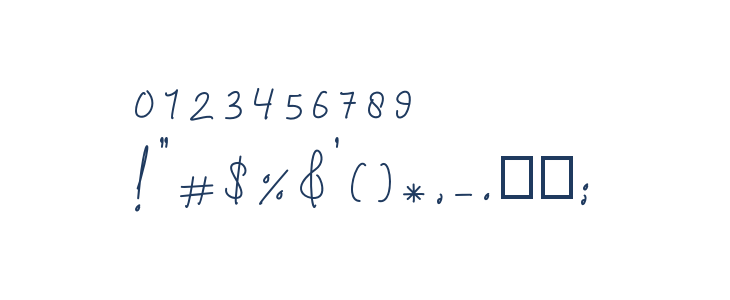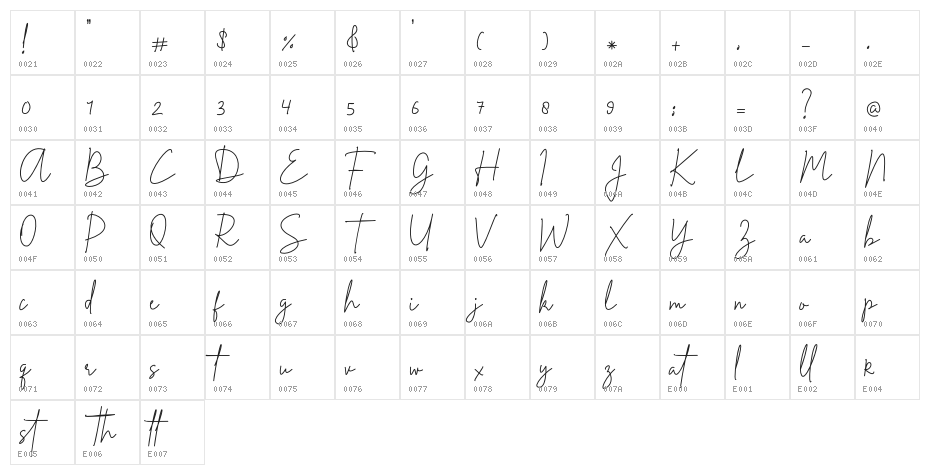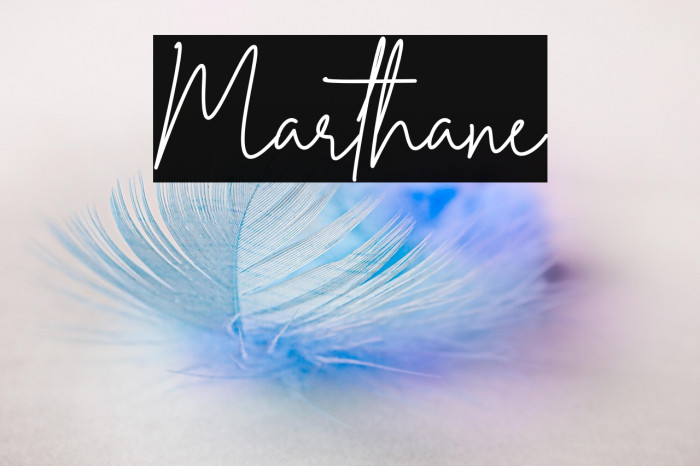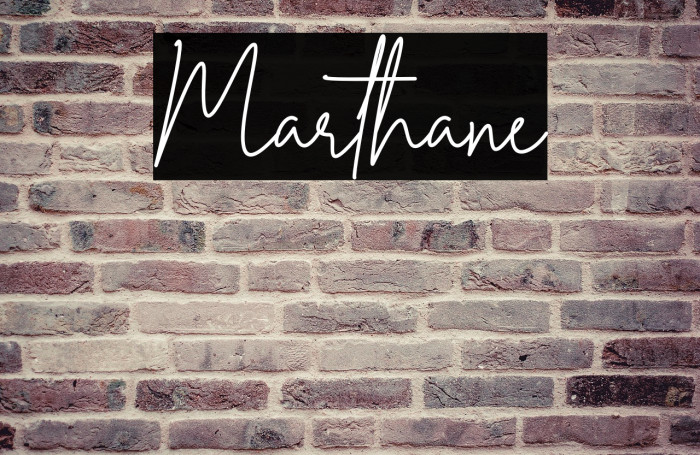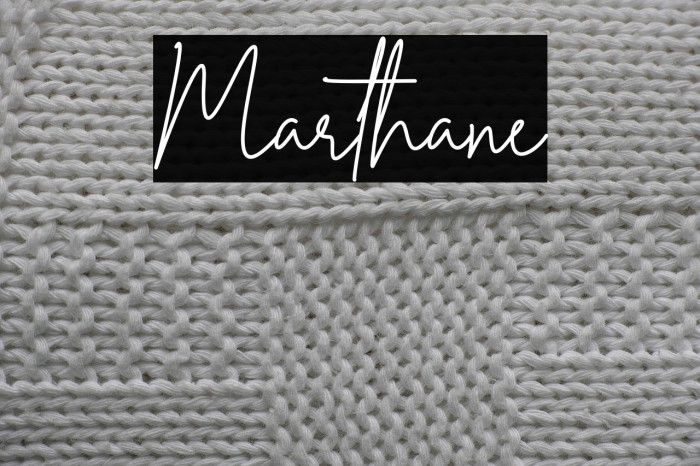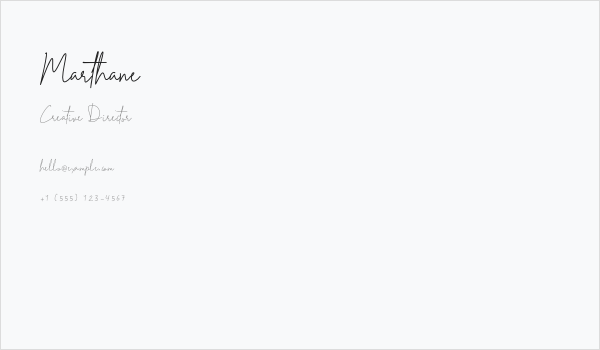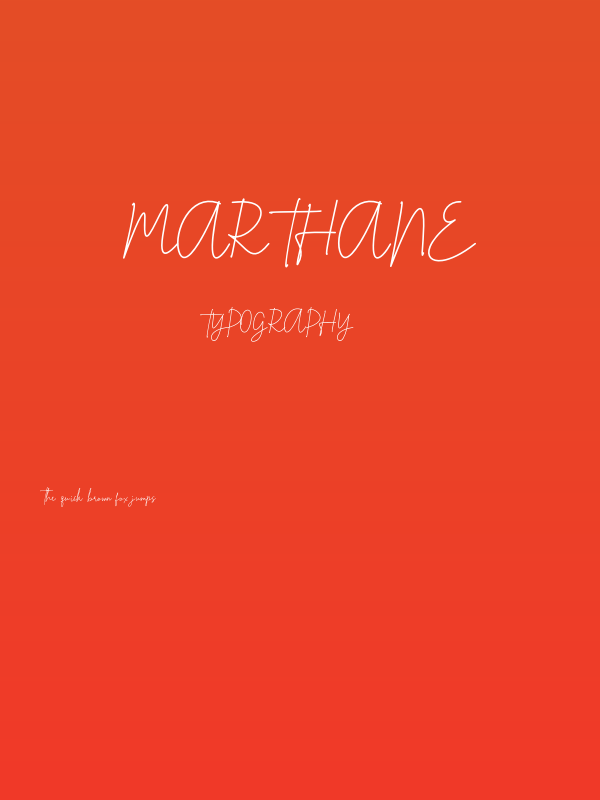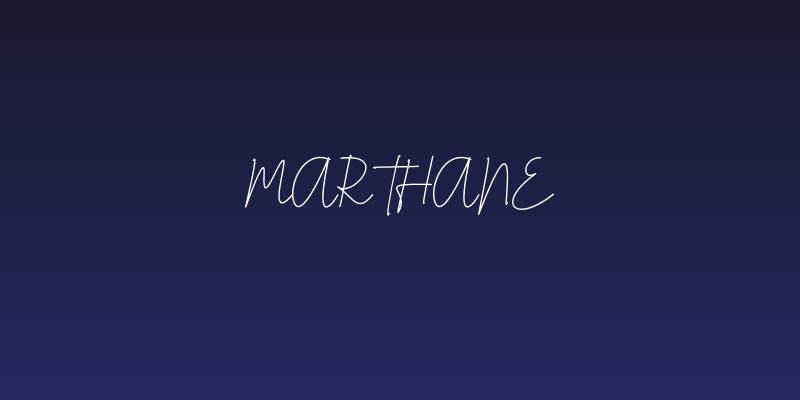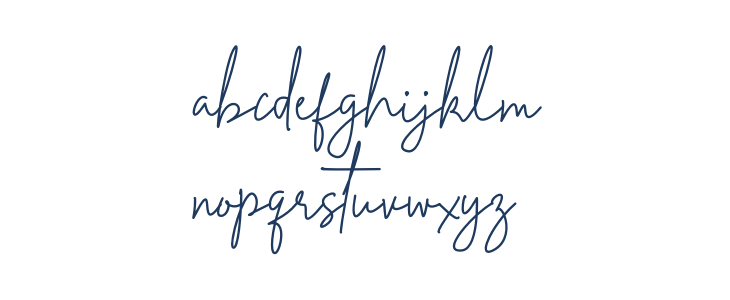
Marthane Font
Marthane Description
This font features a handwritten, cursive style with a natural and flowing appearance. The letters are connected, mimicking the fluidity of real handwriting. The strokes are thin and elegant, providing a sense of sophistication and personal touch. The uppercase letters maintain a consistent height, while the lowercase letters have a slight slant, adding to the casual yet refined look. The numerals and special characters are designed to match the overall aesthetic, ensuring a cohesive appearance across all text. This font is ideal for projects that require a personal, intimate feel.
| Use Case | Logos, Invitations, Personal notes |
| Proposed Projects | Ideal for wedding invitations, personal letters, branding, and social media graphics. |